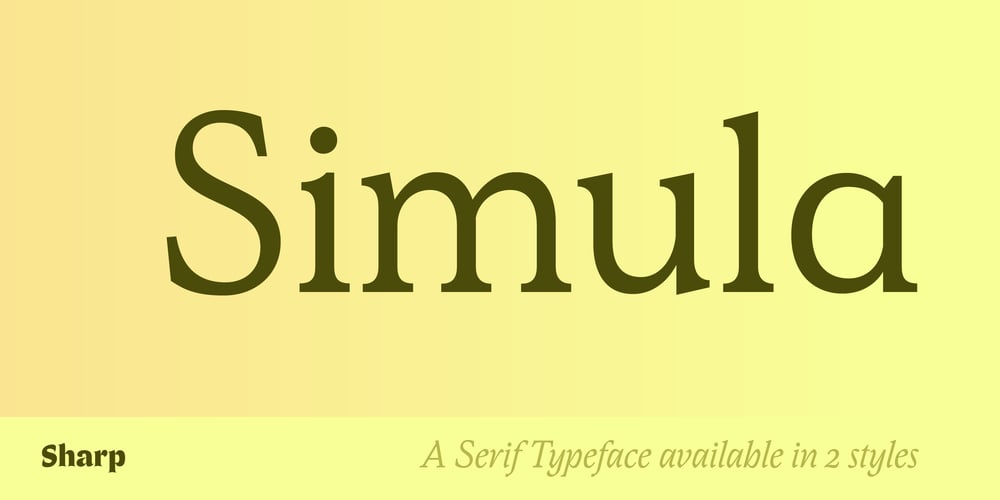
Simula
Simula font
Simula Font Family was designed by Justin Hunt Sloane and published by Monotype. Simula contains 2 styles and family package options. A distant echo of the Plantin model and a study in the proportions of traditional Roman Capitals filtered through an outside perspective, Sloane’s approach to the design is both rational and contradictory. This tension is most evident in the lowercase, which achieves a precarious harmony between the softness of its low-contrast stroke ductus and the constructed angularity of its serifs and terminal forms.